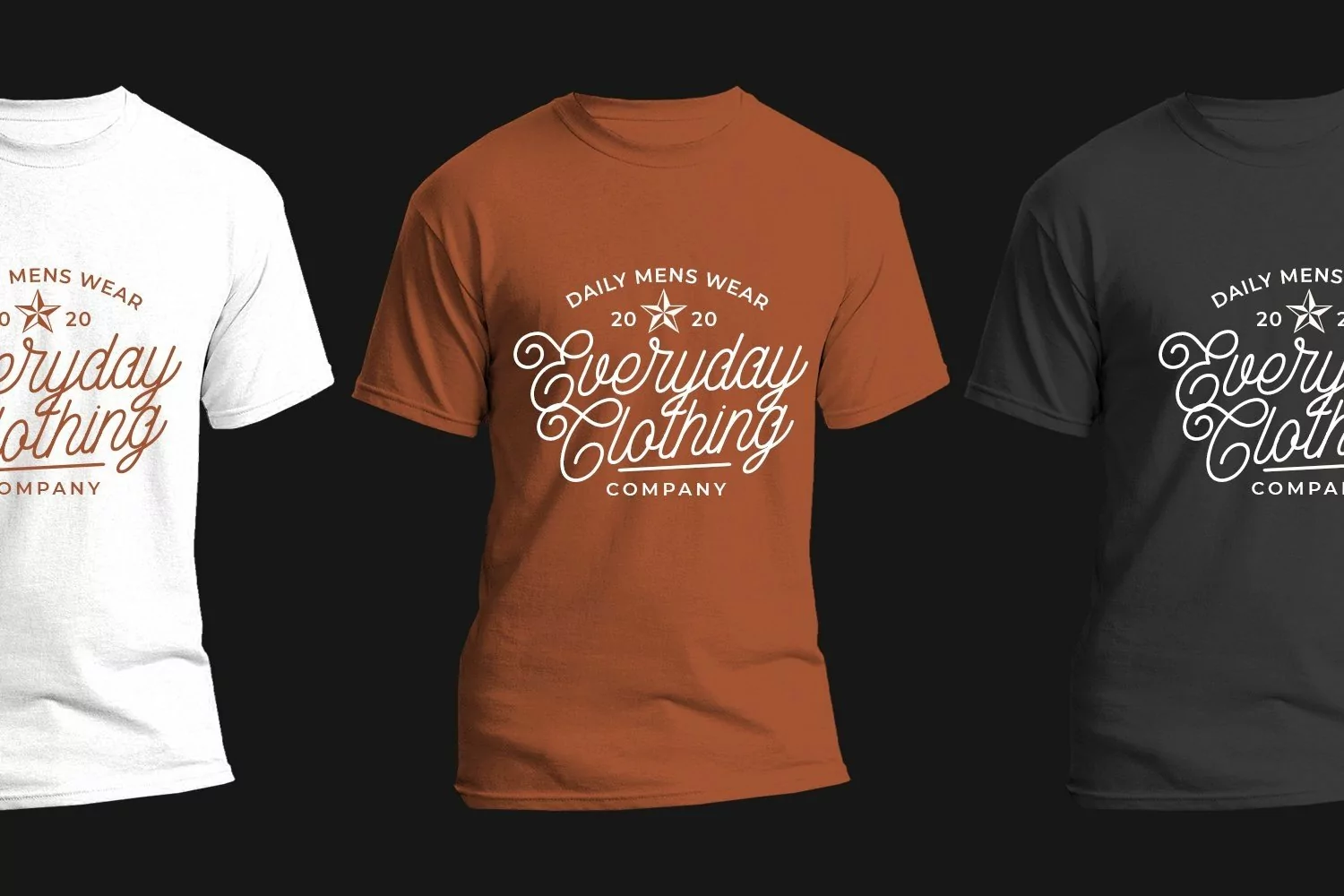
Web Font Hayabusa Script
Hayabusa Script is a monoline script typeface. Perfect for logo, logotype, branding, packaging, quotes, merchandise, header, title and many more.